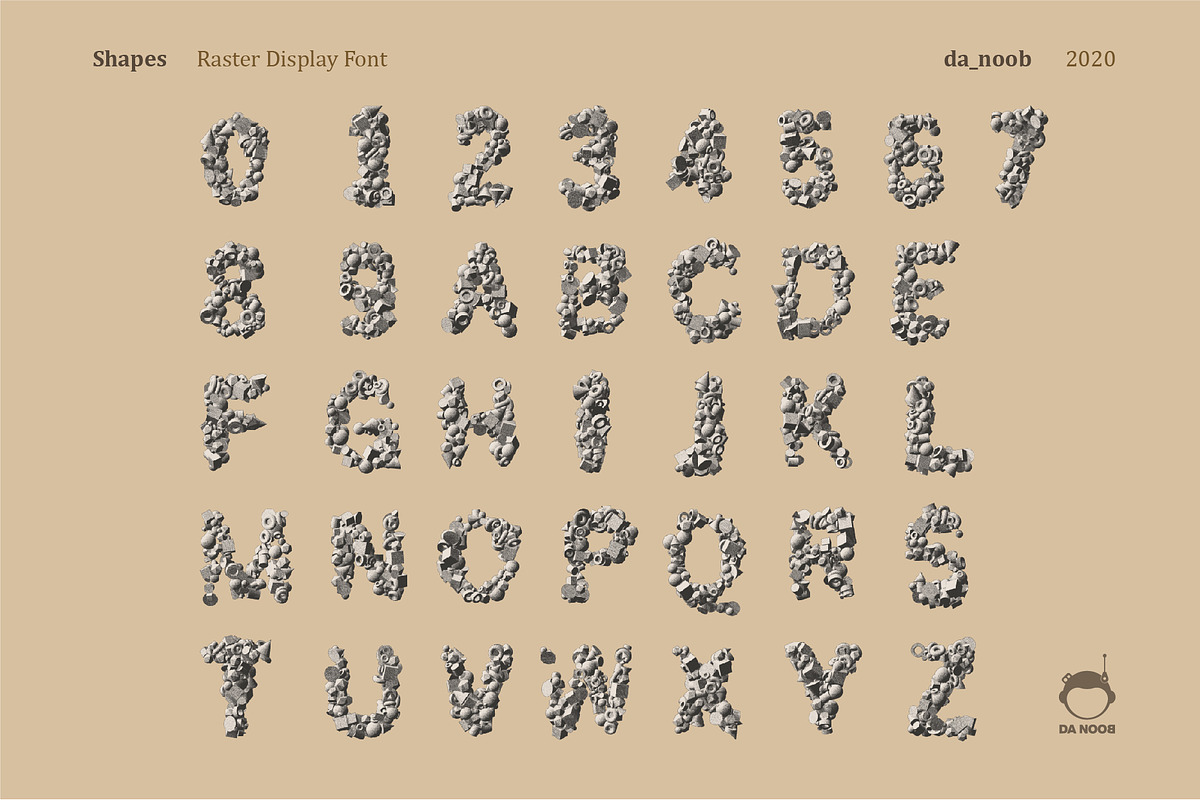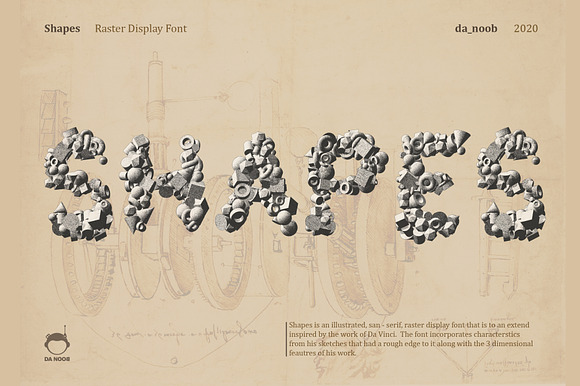
Shapes - Raster display font
Shapes is an illustrated, San - serif, raster display font that is to an extend inspired by the work of Da Vinci. The font incorporates characteristics from his sketches that had a rough edge to it along with the 3 dimensional features of his work.
Thought the font has distinct use cases depending on the creator, it can be best used for headings, short words and illustrative typographic projects.
PLEASE NOTE that this is a display font.
1. The font does not contain special characters and small alphabets.
2. Each alphabet can be scaled to 1500px 1500px without loosing the quality.
4. The font comes in grey scale so that you can color it according to your need.
6. This is not a vector font.